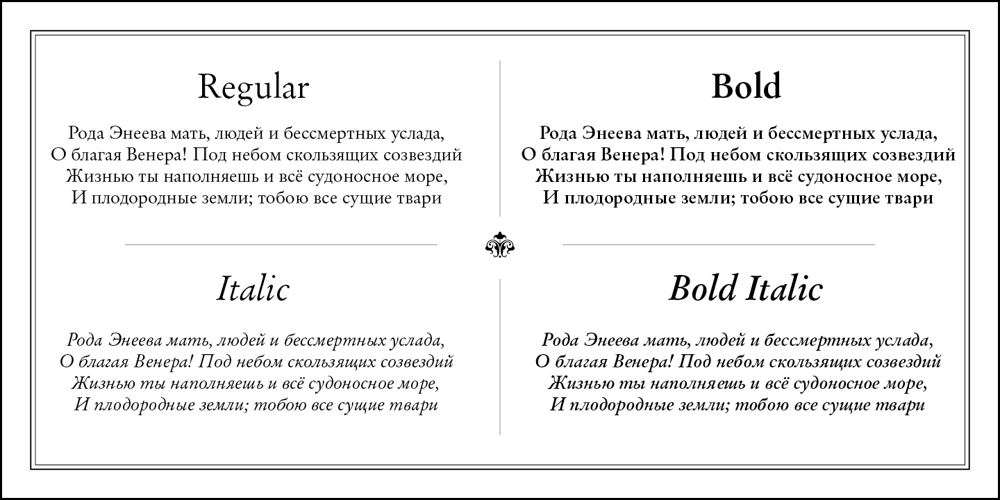
Original Garamond
Original Garamond font
Original Garamond Font Family was designed by Gayaneh Bagdasaryan and published by ParaType. Original Garamond contains 4 styles and family package options. The Stempel foundry in Germany produced this version of Garamond in 1925 as a replica of a typeface of a French punchcutter Claude Garamond (middle of the 16th century). This design has an angular incised appearance which is unlike other Garamond types. It is also slightly heavier in weight, and is highly readable as a text face. Well suited for a wide range of applications and treatments. Original Garamond is the Bitstream version of Stempel Garamond. Cyrillic version was developed for Paratype in 2002 by Gayaneh Bagdasaryan..